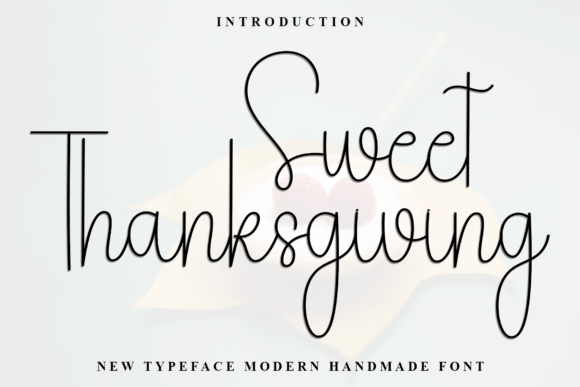
Sweet Thanksgiving Font: Elevate Your Designs with a Unique and Eye-Catching Style
Are you looking for a font that can add a touch of elegance and sophistication to your designs? Look no further than the Sweet Thanksgiving font. This beautiful and eye-catching font is designed with a soft, unique touch that sets it apart from other fonts. Its distinctive strokes give it a special character, making it meaningful and versatile for future use.
What Makes Sweet Thanksgiving Font So Special?
The Sweet Thanksgiving font is a one-of-a-kind font that is perfect for design projects, crafts, and other creative works. Its unique and distinctive strokes make it stand out from other fonts, giving it a special character that is sure to capture the attention of your audience. Whether you’re designing a logo, creating a poster, or crafting a social media post, this font is sure to elevate your design and make it more appealing to your audience.
Key Features of Sweet Thanksgiving Font
- Unique and Eye-Catching Design: The Sweet Thanksgiving font has a soft, unique touch that sets it apart from other fonts.
- Distinctive Strokes: The font’s distinctive strokes give it a special character, making it meaningful and versatile for future use.
- Variety of Characters: The font comes with a variety of characters, making it perfect for design projects, crafts, and other creative works.
Why Choose Sweet Thanksgiving Font?
There are many reasons why you should choose the Sweet Thanksgiving font for your design projects. Here are a few:
- Enhance Your Designs: The Sweet Thanksgiving font is designed to enhance your designs, making them more appealing to your audience.
- Perfect for Various Projects: The font is perfect for a wide range of projects, including design projects, crafts, and other creative works.
- Natural Font Style: The Sweet Thanksgiving font has a natural font style that is ideal for a wide range of products.
Use Cases for Sweet Thanksgiving Font
The Sweet Thanksgiving font is perfect for a wide range of projects and applications. Here are a few use cases:
- Design Projects: The font is perfect for design projects, such as creating logos, posters, and social media posts.
- Crafts: The font is also perfect for crafts, such as scrapbooking, card making, and other paper crafts.
- Creative Works: The font is ideal for creative works, such as writing, art, and other forms of self-expression.
Tips for Using Sweet Thanksgiving Font
Here are a few tips for using the Sweet Thanksgiving font:
- Use it for Headings: The font is perfect for headings and titles, as it adds a touch of elegance and sophistication to your designs.
- Experiment with Different Sizes: Experiment with different font sizes to see how it looks in different contexts.
- Pair it with Other Fonts: The Sweet Thanksgiving font pairs well with other fonts, so feel free to experiment with different font combinations.
- What is the Sweet Thanksgiving font?: The Sweet Thanksgiving font is a beautiful and eye-catching font designed with a soft, unique touch.